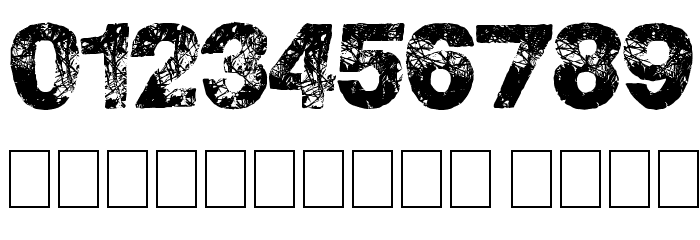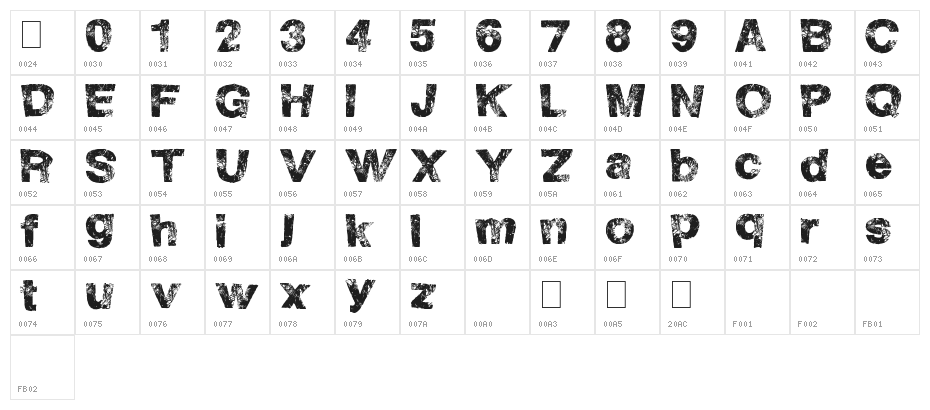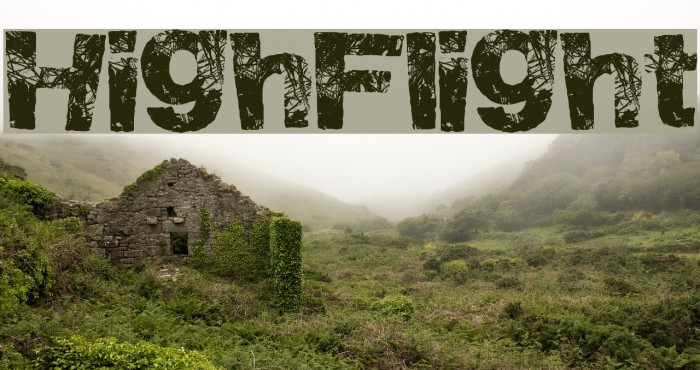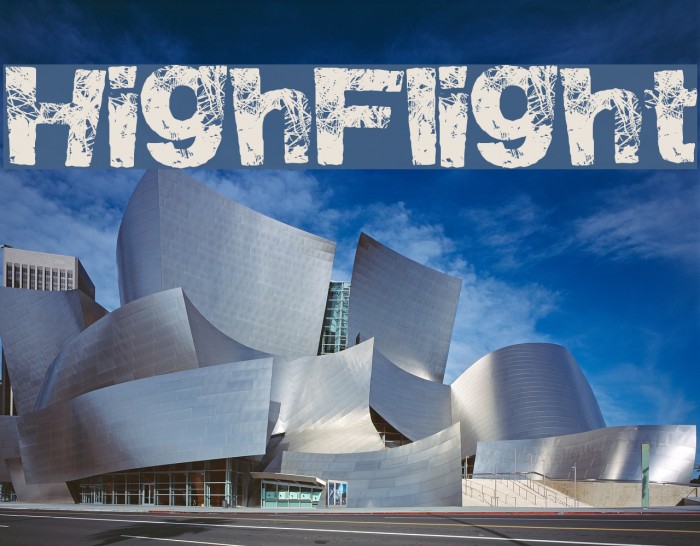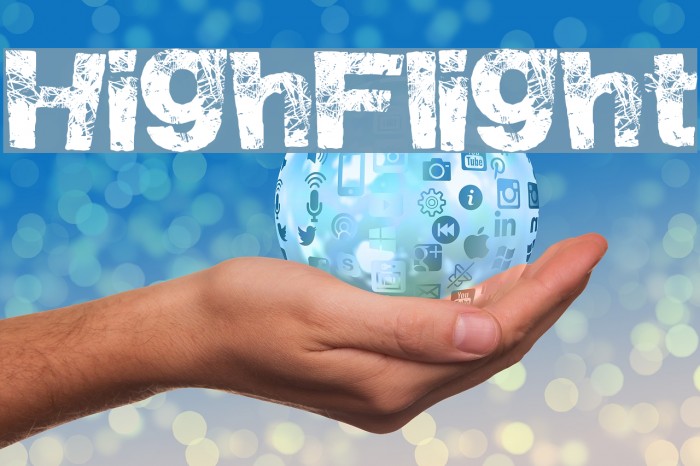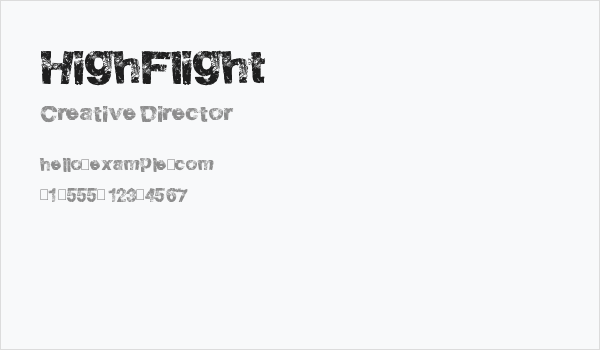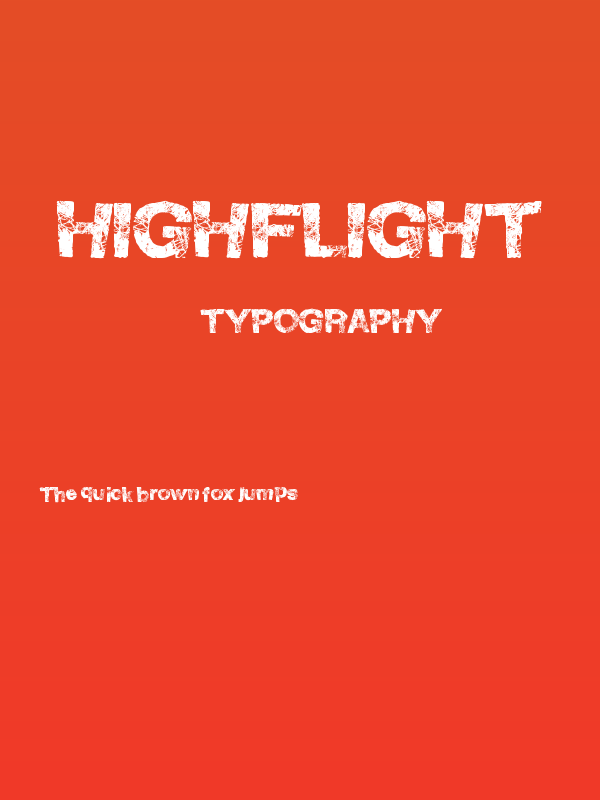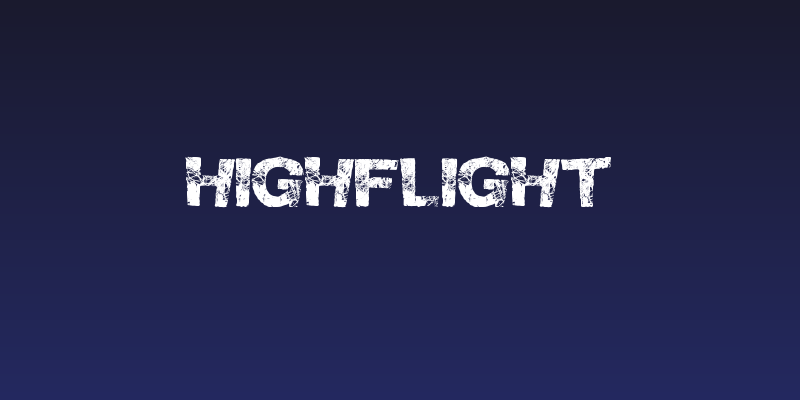
HighFlight Font
HighFlight Description
This font features a bold, distressed style with a textured appearance that gives it a rugged, worn look. The uppercase and lowercase letters are consistent in their rough, grunge-like texture, making it ideal for designs that require a strong, impactful presence. The numbers and special characters maintain this distressed aesthetic, ensuring uniformity across all characters. The font's unique style is reminiscent of urban or industrial themes, perfect for projects that aim to convey a sense of edginess or rawness.
| Overall Style | Grunge, Urban, Industrial |
| Proposed Projects | Ideal for posters, album covers, streetwear branding, or any project needing a gritty, urban feel. |